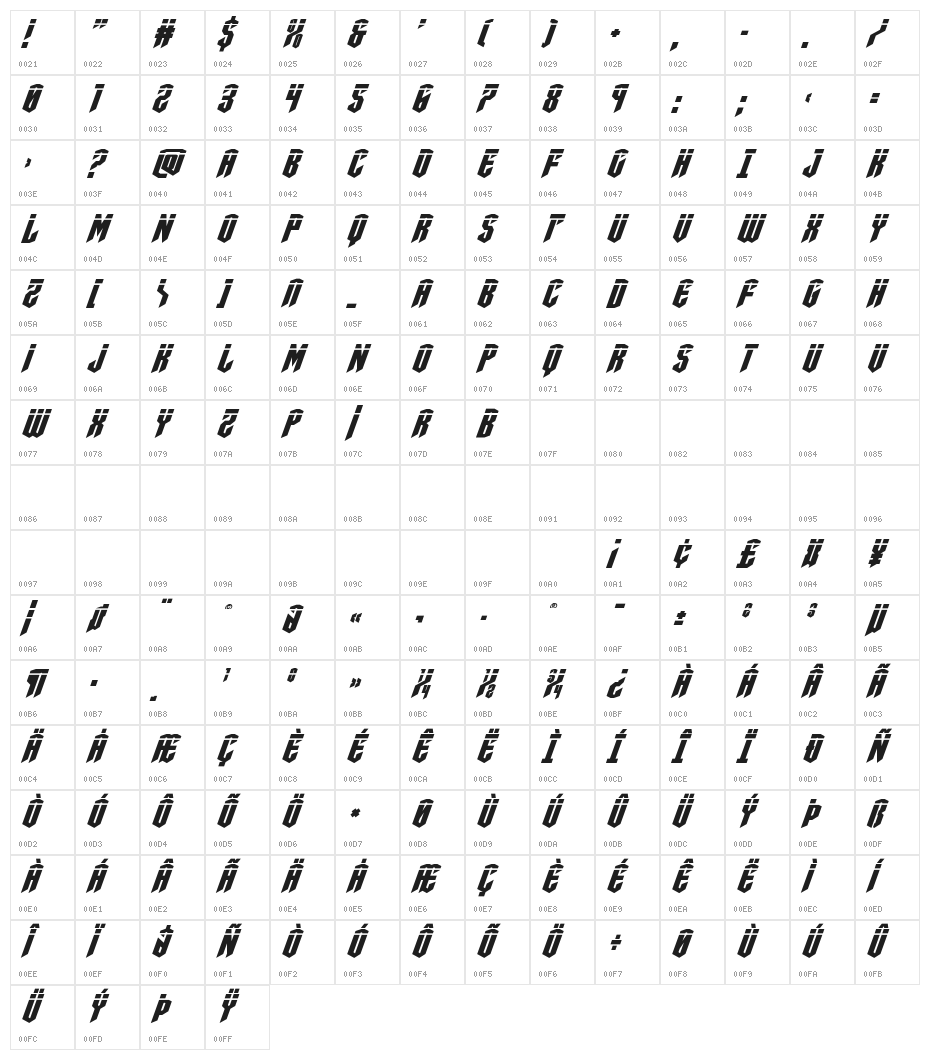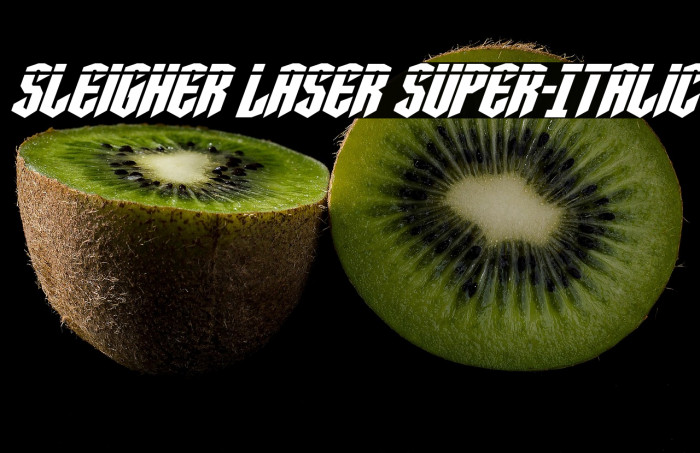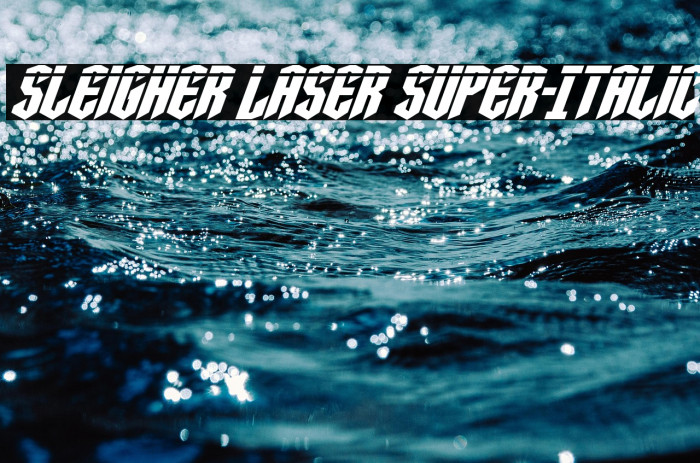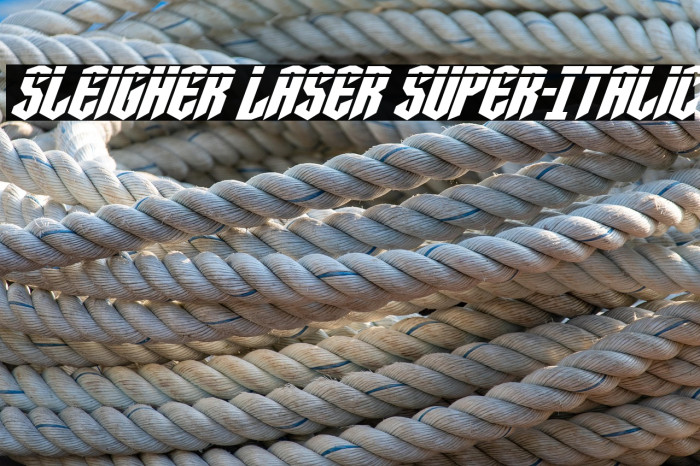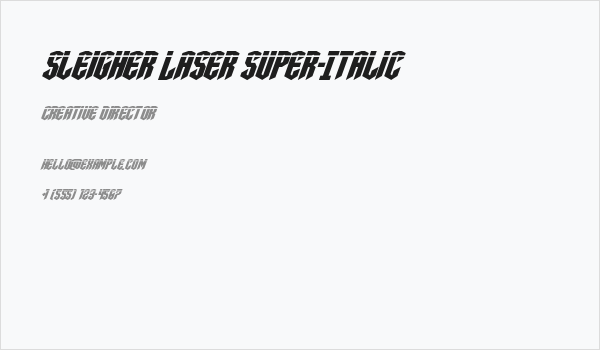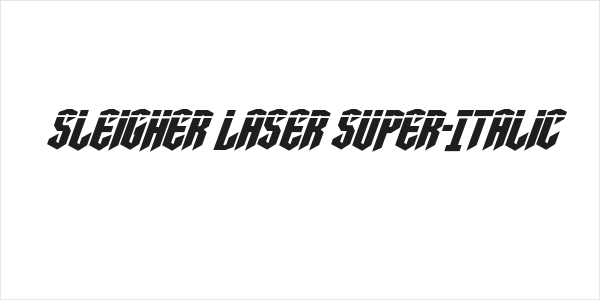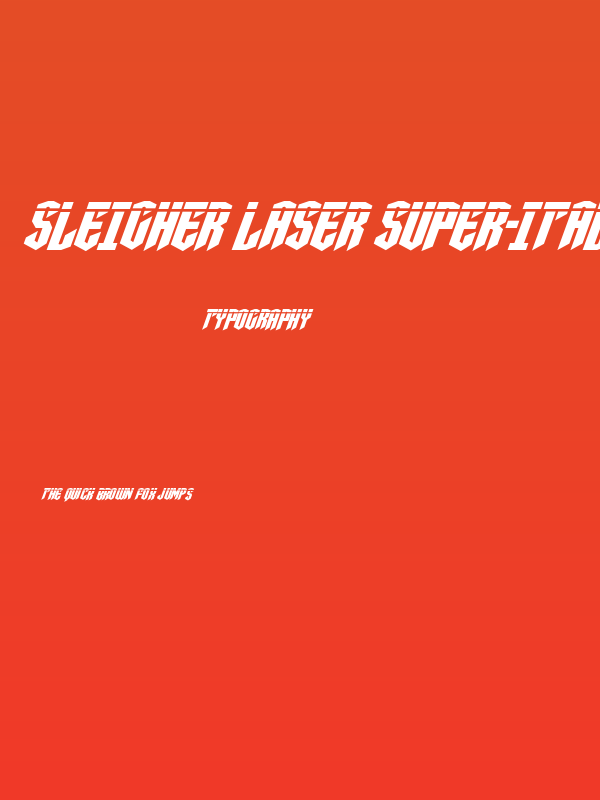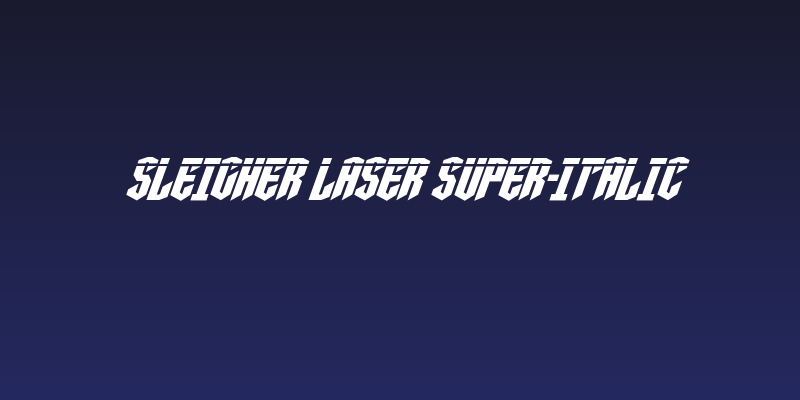
Sleigher Laser Super-Italic Font
Sleigher Laser Super-Italic Description
This font features a bold and dynamic design with a distinct italic slant, giving it a sense of speed and movement. The characters are sharply angular, with a futuristic and edgy appearance. The uppercase and lowercase letters maintain a consistent style, with exaggerated serifs and pointed edges that enhance its aggressive look. The numbers and special characters follow the same design principles, ensuring uniformity across all glyphs. This font is ideal for projects that require a strong visual impact and a modern, energetic vibe.
| Proposed Projects | Ideal for sports branding, video game titles, and dynamic poster designs. |